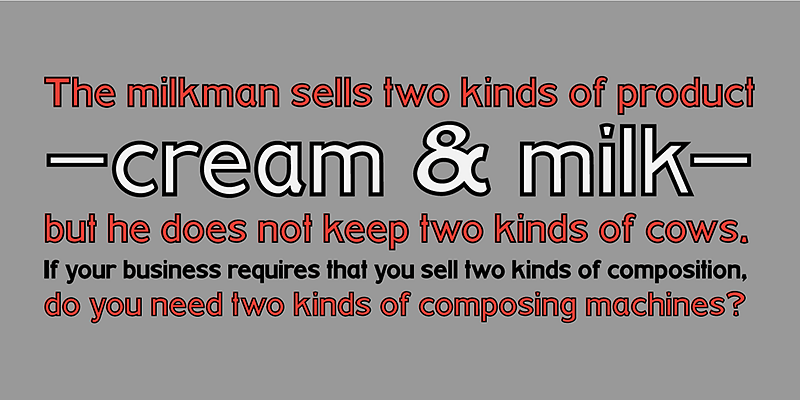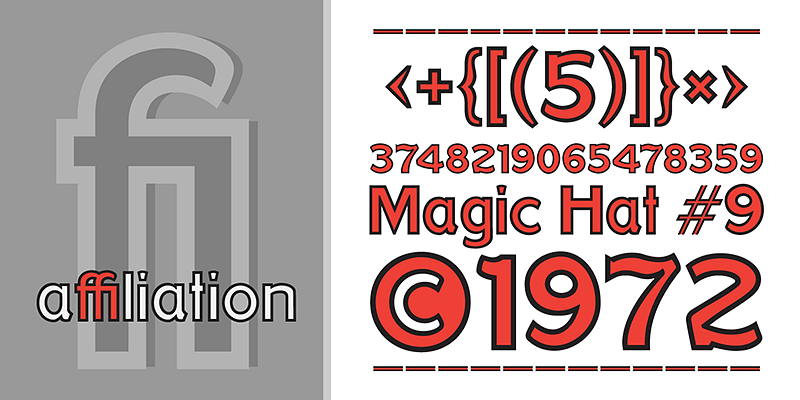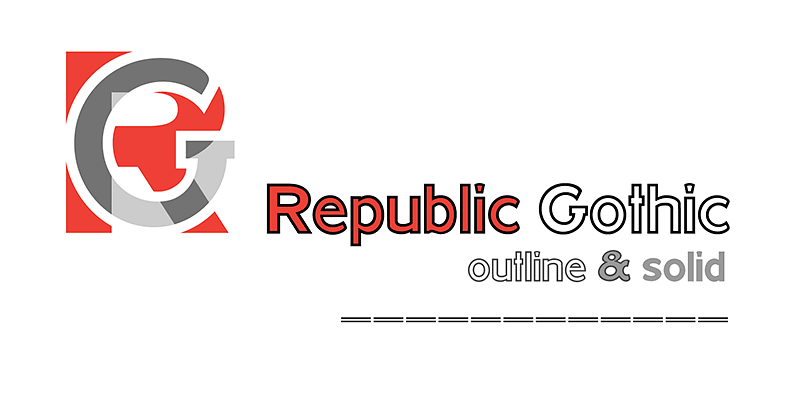
HWT Republic Gothic was among the last original wood type designs made by Hamilton (c. 1920). It features a sans-serif style reminiscent of brush-formed letters popular with sign painters of the era.
Hamilton Wood Type Collection, established in 2012, is a joint venture between P22 Type Foundry and the Hamilton Wood Type & Printing Museum. The founding goal was to safeguard a typographic era and make classic wood type designs available as digital fonts for modern audiences. This historical collection of serif revivals, sans reinterpretations, decorative embellishments, script reclamations, and original chromatic designs is stunningly relevant and usable for any imaginative design practice.